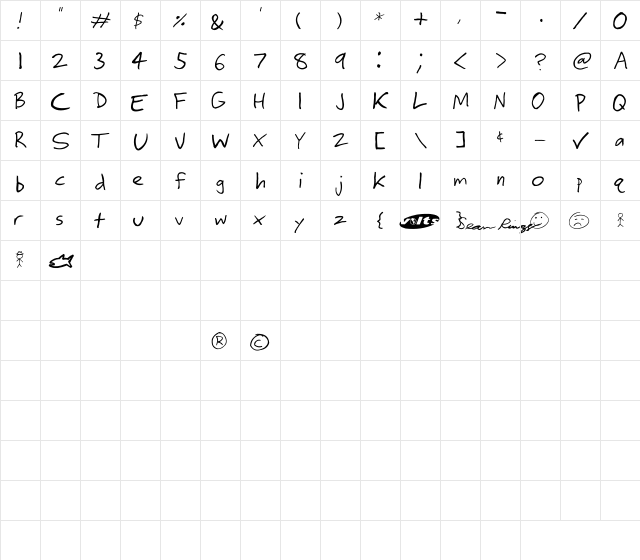
ringey Regular
| Foundry | Partly Cloudy Media |
| Designer | Sean Ringey |
Design Context for ringey Typeface
ringey is a composed and adaptable typeface that performs quietly and consistently across a wide range of design contexts.